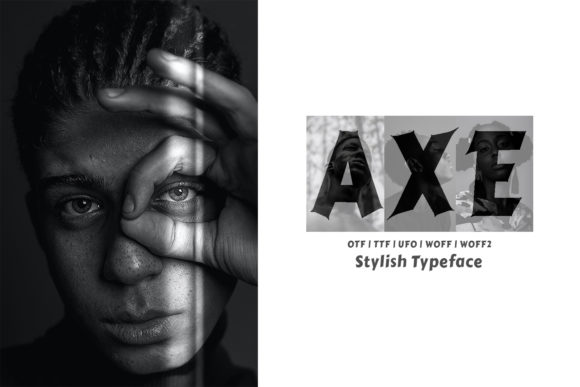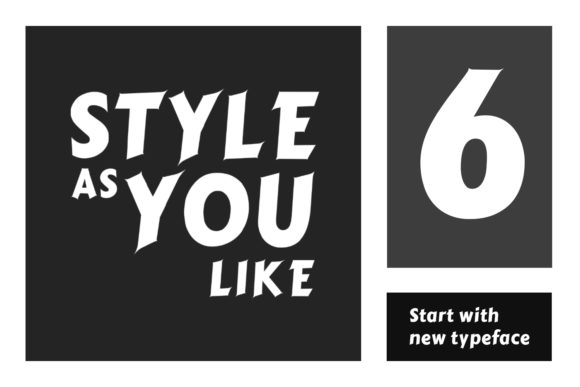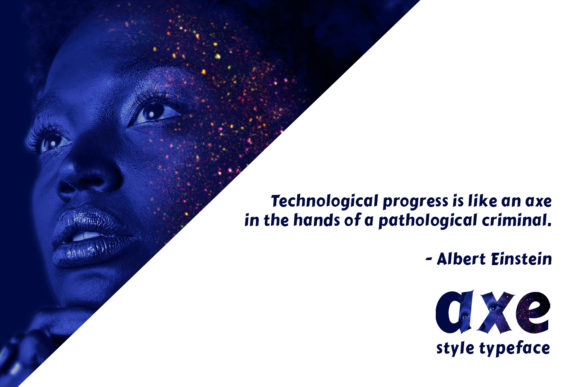
Axe Font: Bold Display Font for Creative Logo Design & Headlines!
About the Axe Font
From logos to headlines, the Axe Font is the perfect choice for making a lasting impression. Axe is a bold and chunky lettered display font. Due to its versatility, it matches a wide pool of designs. Add it to your most creative ideas and notice how it makes them stand out!
Axe excels as a headline font for posters, branding materials, and short impactful statements. Its bold, chunky nature commands attention, making it ideal for projects requiring a strong visual presence. However, its weight and condensed letterforms are unsuitable for body text or UI elements; readability suffers in smaller sizes or extended passages.
The font’s core personality is bold and assertive, conveying confidence and power. It suits brands projecting strength, innovation, or a modern, edgy aesthetic. Consider pairing Axe with a clean sans-serif like Open Sans for body copy to balance its heavy weight, or a more delicate script font like Great Vibes for a touch of elegance in logos or subheadings.
For a more rugged feel, a geometric sans-serif such as Roboto would create a contrasting yet harmonious combination.